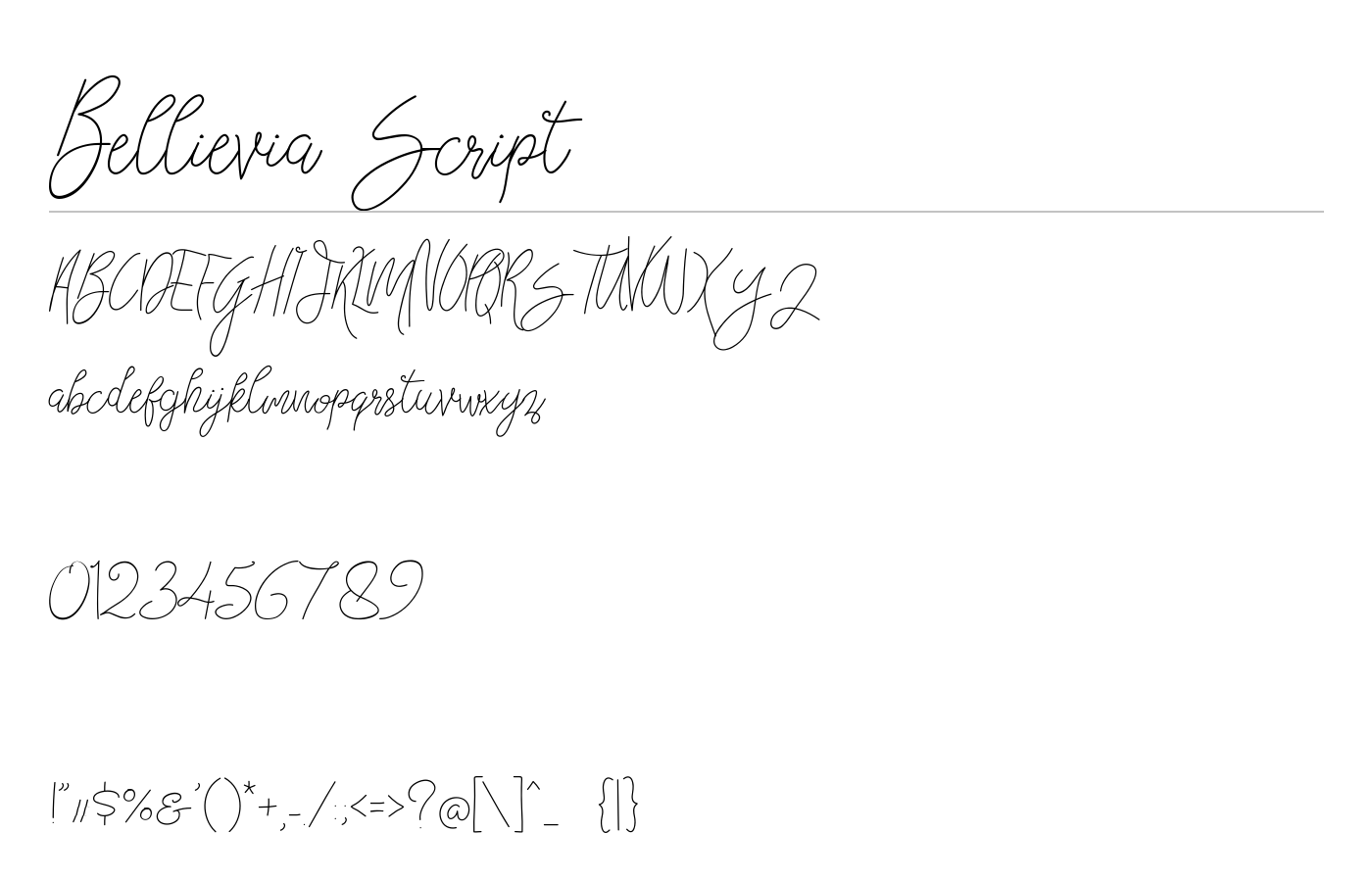
Bellievia Script is a delicate, thin script font characterized by its elegant, flowing lines and handwritten charm. Its slender, airy letterforms with slight flourishes convey a personal and sophisticated feel, making it perfect for invitations, branding, and stylish editorial use where a light, graceful touch is desired. This font works well for creative projects that seek a modern yet intimate and refined aesthetic.
Bellievia Script Font
About Bellievia Script Font
| Font family | Bellievia Script Font |